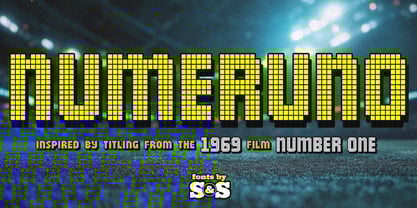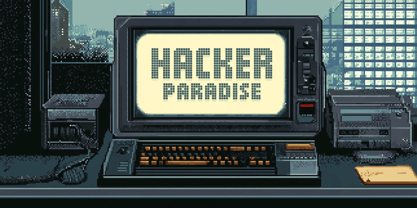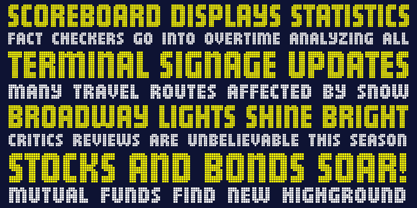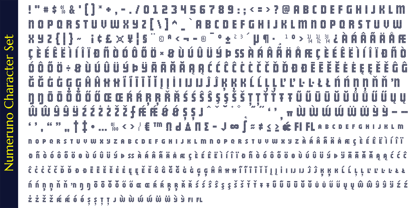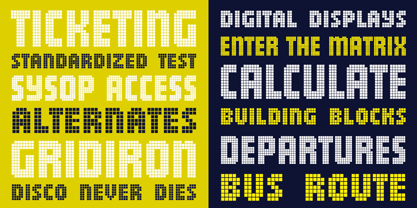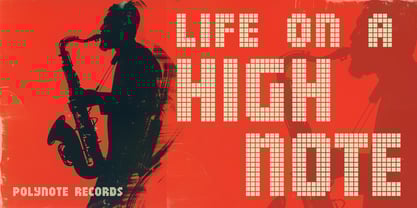
Numeruno
The Numeruno Font Family was designed by Brian J. Bonislawsky and published by Stiggy & Sands. Numeruno contains 1 styles. More about this family
Numeruno is a digital matrix display sans inspired by screen captures from the title sequence of the 1969 film Number One. Built from illuminated grid-based forms, it captures the look of early electronic signage and scoreboard lettering while expanding that visual language into a versatile contemporary display typeface. Ideal for scoreboards, terminal graphics, signage, posters, gaming, retro-tech branding, music visuals, and digital-themed display work, Numeruno delivers a bold electronic personality with strong graphic impact. Its OpenType features include stylistic alternate squat capitals derived from the smaller matrix scale seen in its original inspiration, giving designers added flexibility for varied display treatments.